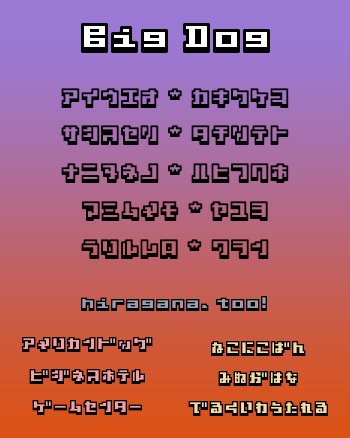
Simple mono spaced letters with outline and shadow. I was fortunate to find this hidden gem. One thing that stricken me first was the lack of descenders. However, that omission was done with due care and thought, and the lower case j,g,p,q,y did not suffer a bit. The Latin set is accompanied by Japanese Katakana and Hiragana alphabets. BÜRO DESTRUCT reincarnated? 10/10